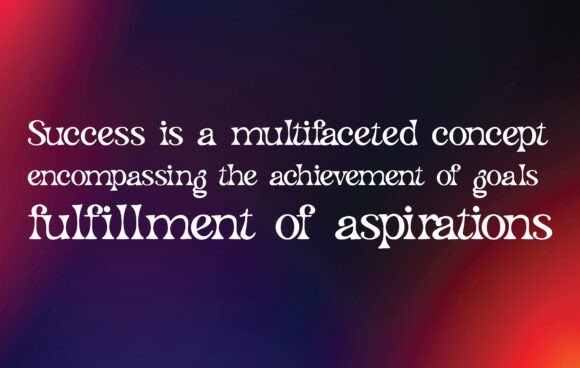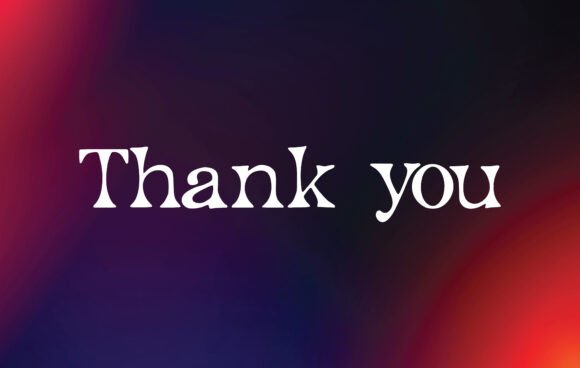
Discover the Versatility of Emilia Font: Elevate Your Designs with Elegance
An Honest Review of Emilia Font
- ✅ Legibility: Emilia Font is incredibly easy to read, making it perfect for both title and body text.
- ✅ Versatility: Its elegant design makes it suitable for a wide range of projects, from magazine headlines to wedding invitations.
- ✅ Aesthetic appeal: The font’s classic yet modern look adds a touch of sophistication to any design.
- ✨ OpenType features: Emilia Font comes with a range of OpenType features, including stylistic alternates and glyphs, which can be used to add an extra layer of creativity to your designs.
Now, no font is perfect, and Emilia Font has a few minor quirks:
- ⚠️ Limited availability of certain characters: Some users have reported that certain special characters are not available in Emilia Font. However, this can be easily addressed by using the font’s built-in glyphs or alternates.
- 🤔 Requires careful kerning: As with any font, kerning is crucial to ensure that your text looks professional. Take the time to adjust the kerning to achieve the best results.
The Story Behind Emilia Font
Emilia Font was designed with the goal of creating a versatile and elegant typeface that would meet the needs of designers and crafters. The font’s creator drew inspiration from classic serif fonts, with a focus on legibility and aesthetic appeal. The result is a font that’s both timeless and modern, perfect for a wide range of design projects.
| Font Name | Emilia Font |
| Author | moonlight craft |
| What is Emilia Font best suited for? | Emilia Font is perfect for a wide range of design projects, including magazine headlines, t-shirts, social media graphics, branding, wedding invitations, and more. |
| Is Emilia Font easy to read? | Yes, Emilia Font is designed to be highly legible, making it suitable for both title and body text. |
| Does Emilia Font come with OpenType features? | Yes, Emilia Font includes a range of OpenType features, including stylistic alternates and glyphs, which can be used to add an extra layer of creativity to your designs. |